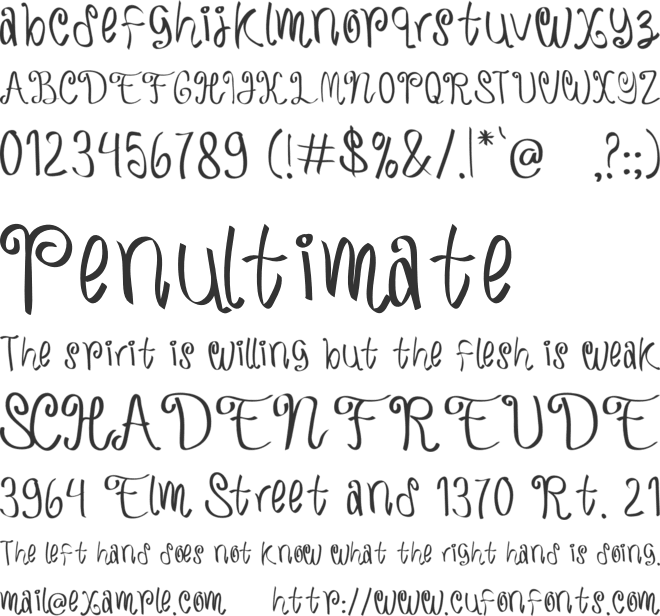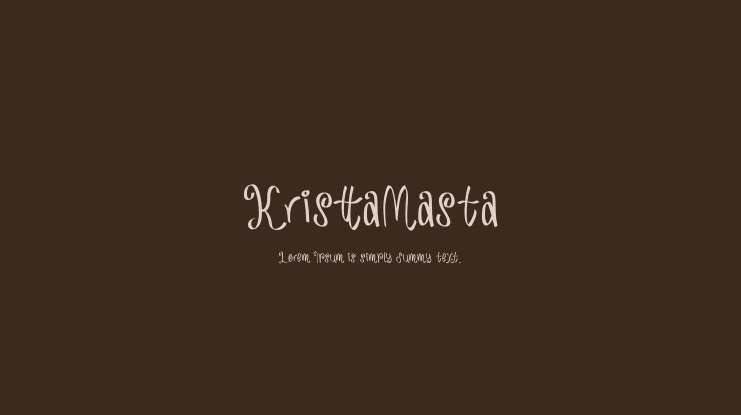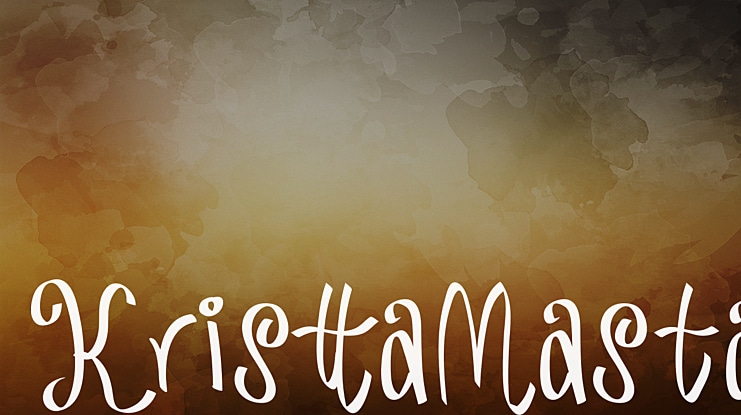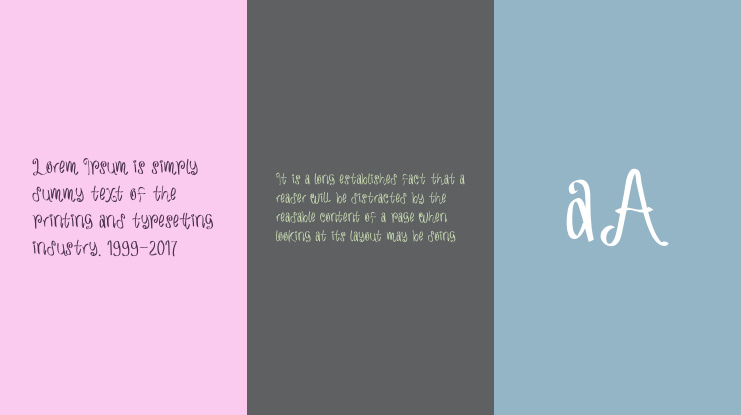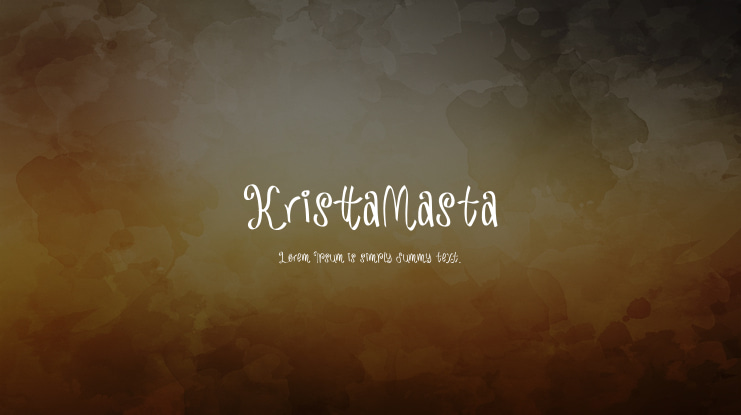
KristtaMasta Font
Kristta Masta Font
Kristta Masta Font is a Chick and Beautiful Display Font with an incredible Christmas feel. This font is ideal for all of your Product Design such as Social Media Post, Advertisement, etc that has joyful and fun Christmas Holiday Spirit.